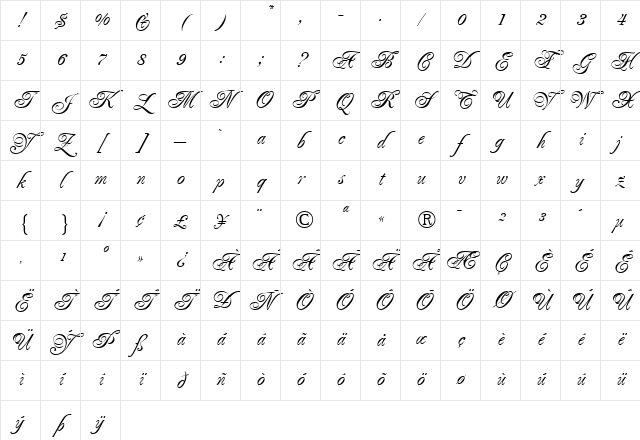
Complete PopplResidenz Light glyph index. Displaying only characters natively supported by PopplResidenz Light font.
PopplResidenz is a composed and adaptable typeface that performs quietly and consistently across a wide range of design contexts. Its slender proportions lend an understated elegance to any composition.